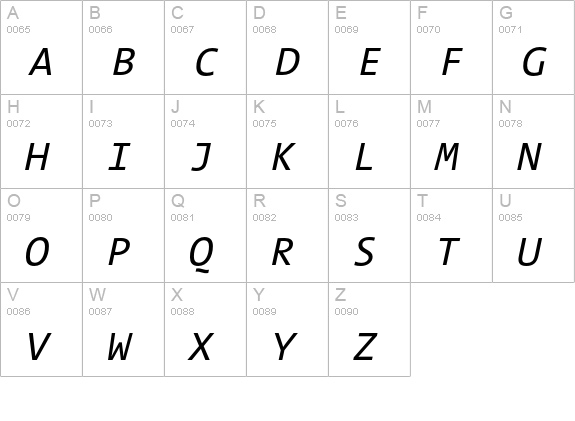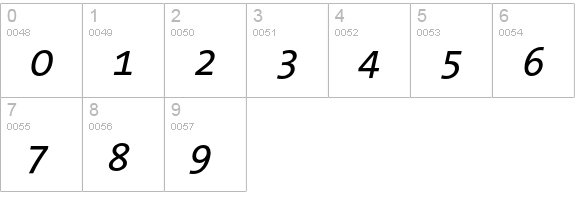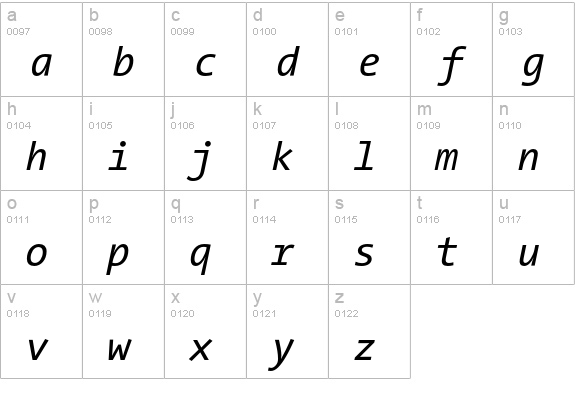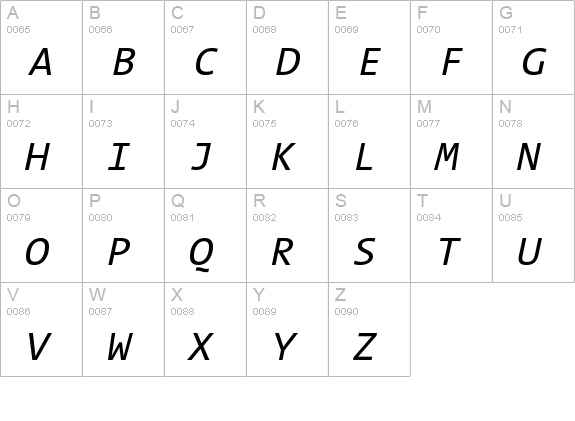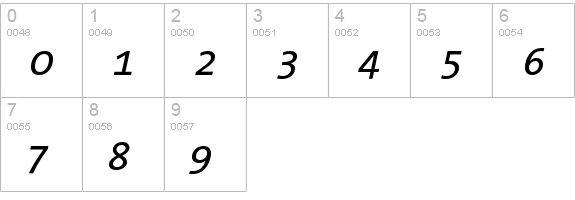
TheSansMono Italic Font Details
TheSansMono Italic is a distinctive, italic variant in the TheSansMono typeface family \xE2\x80\x94 well suited to design and typography projects.
TheSansMono Italic font is a visually stunning and versatile typeface that adds a touch of elegance and sophistication to any design project. With its sleek and slanted letterforms, this font exudes a sense of modernity and professionalism. TheSansMono Italic font is perfect for a wide range of applications, from print designs such as headlines, logos, and posters, to digital projects like websites, apps, and social media graphics. Its stylish and distinctive appearance captures attention and creates a lasting impression. One of the best features of TheSansMono Italic font is that it is completely free to use. You can easily download this font from FontsMarket.com, a trusted source for high-quality fonts. By offering this font for free, it allows designers and creatives to access a premium typeface without any cost, making it an excellent choice for those on a budget. TheSansMono Italic font is designed with legibility in mind, ensuring that your text remains clear and easy to read in any size or format. Its italicized slant adds a touch of flair and sophistication to your text, making it stand out from the crowd. Whether you're a professional designer or a hobbyist, TheSansMono Italic font is a must-have in your font collection. Its versatility, elegance, and the fact that it is freely available to download at FontsMarket.com make it an invaluable resource for all your creative endeavors.